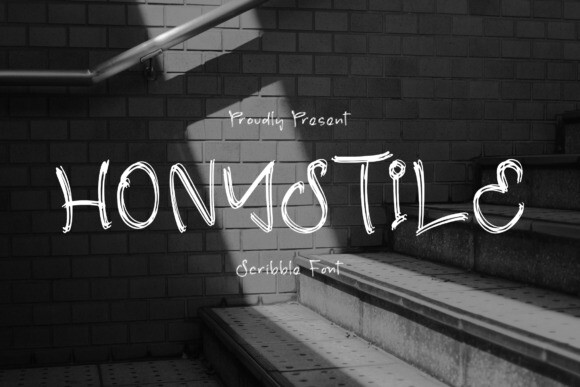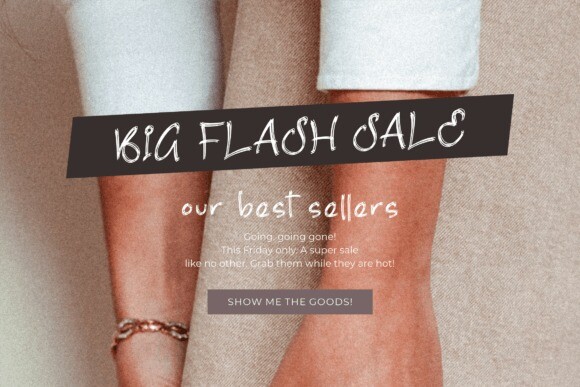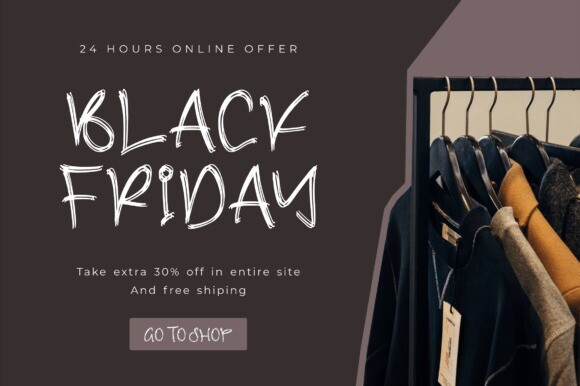
Honystile Font
Honystile Font is a modern and elegant script font, suitable for a variety of projects such as logos, branding, homeware designs, product packaging, mugs, quotes, posters, shopping bags, t-shirts, book covers, name card, invitation cards, greeting cards, label, photography, watermark, special events, and all your other lovely projects that need a beautiful script taste.